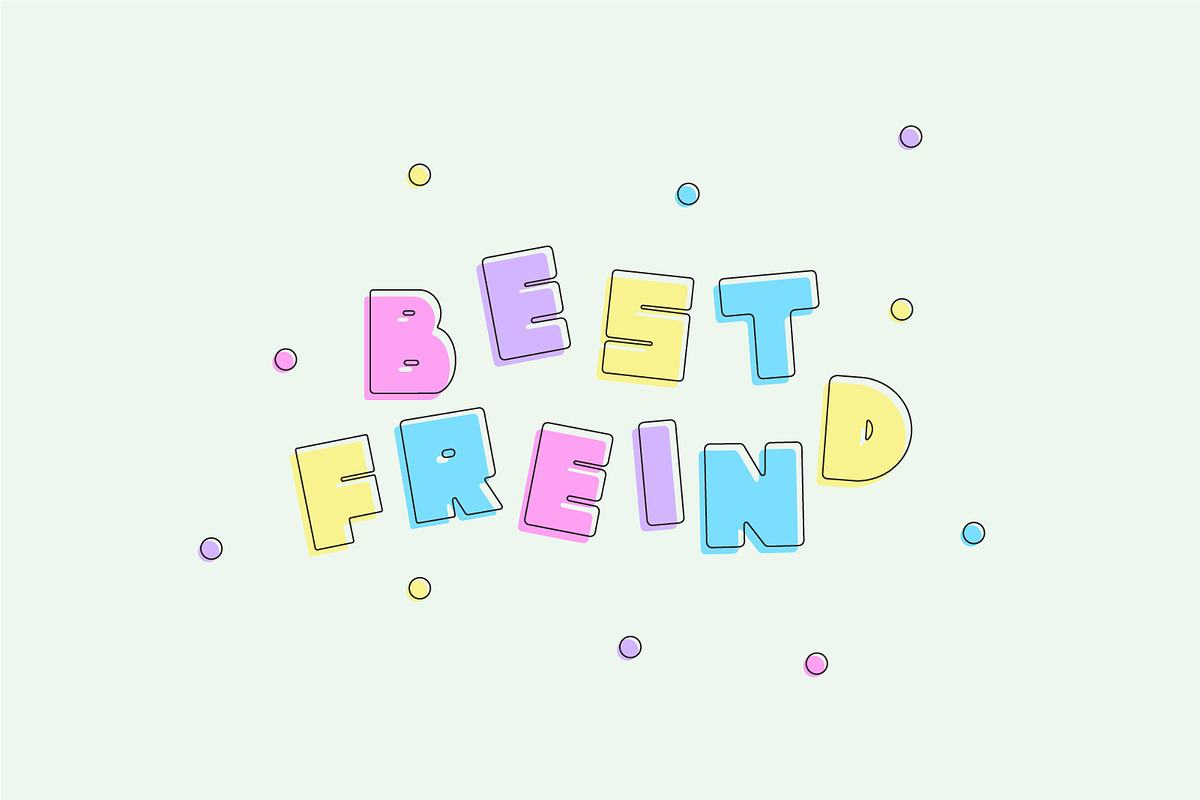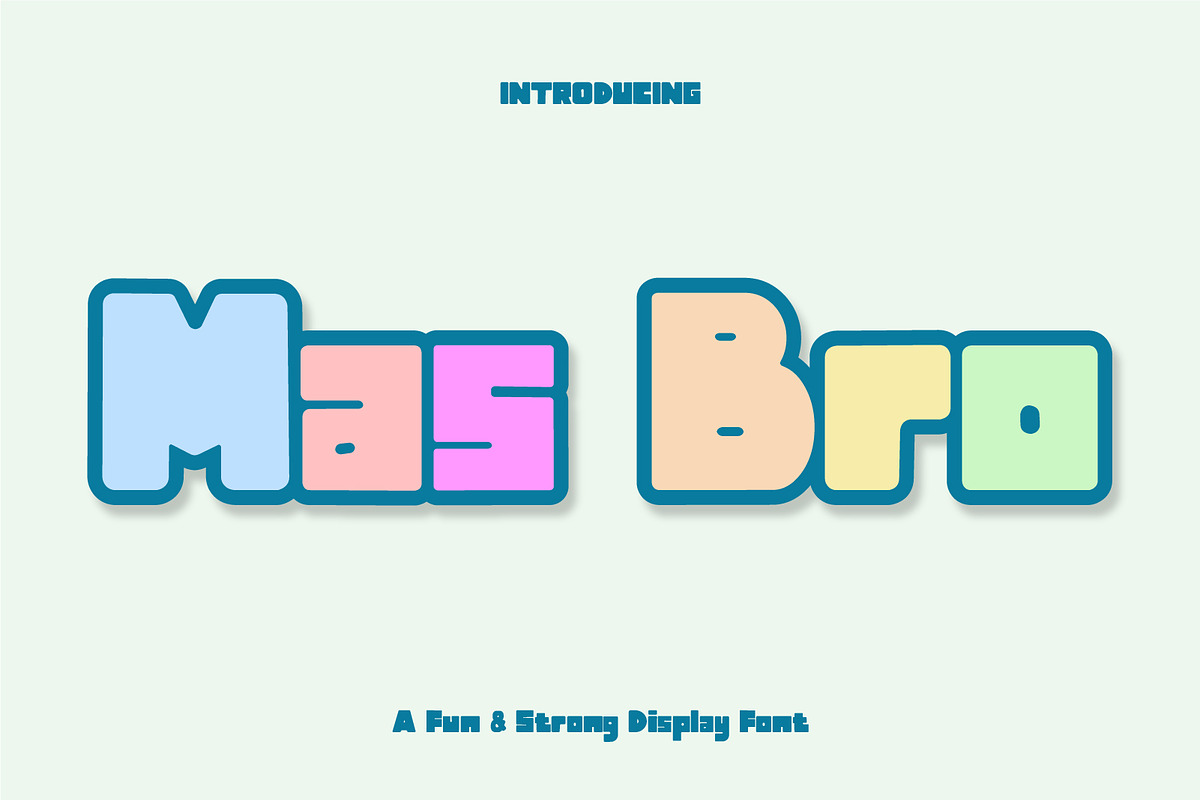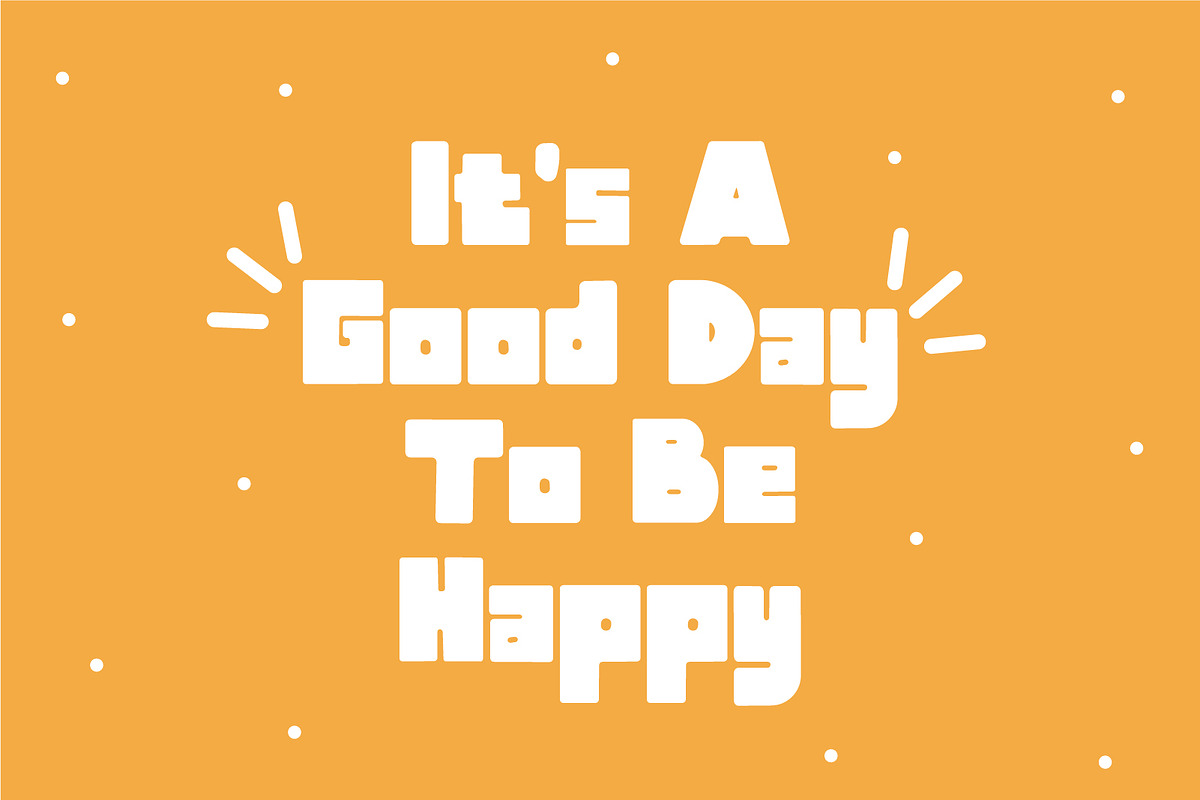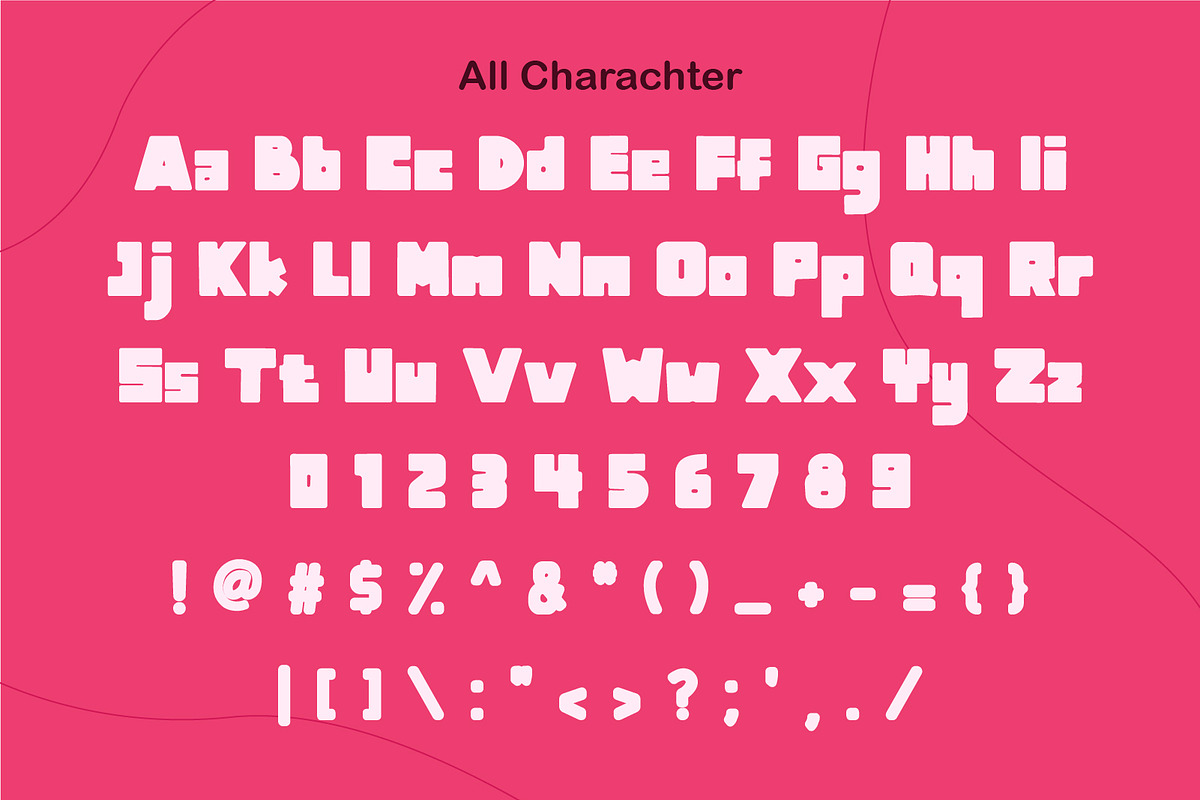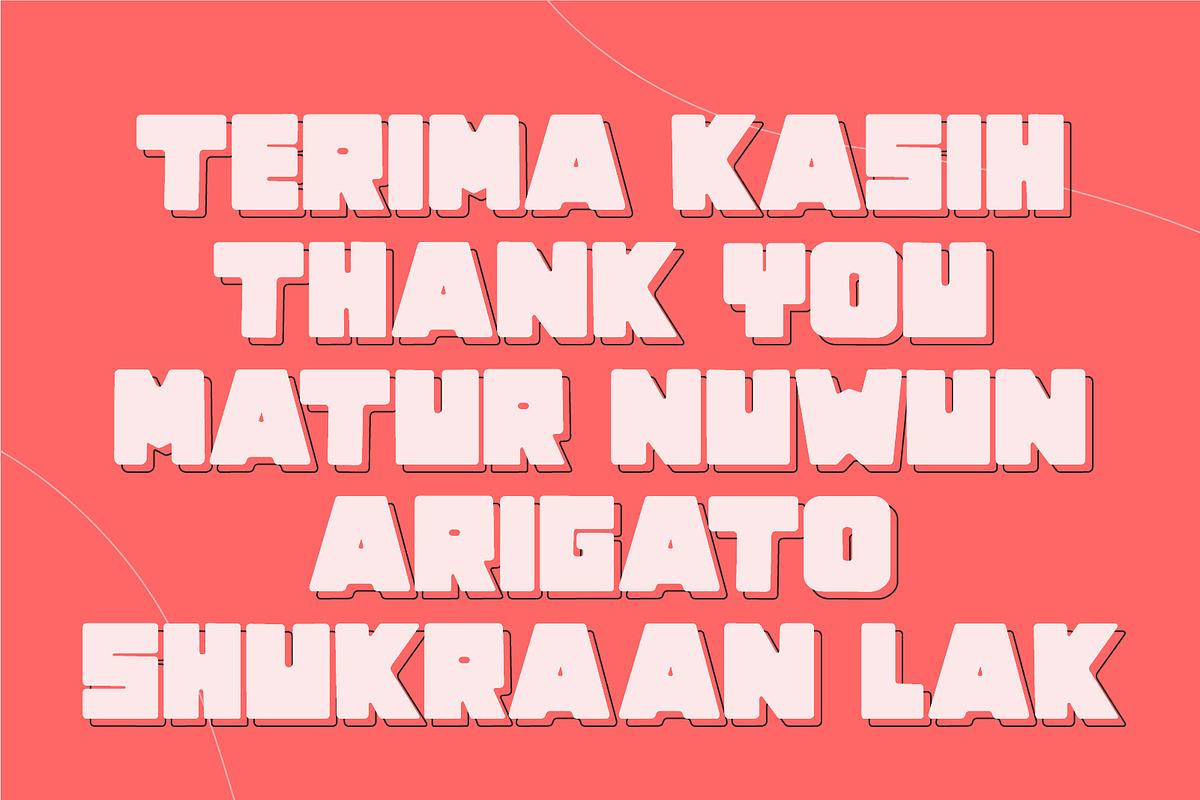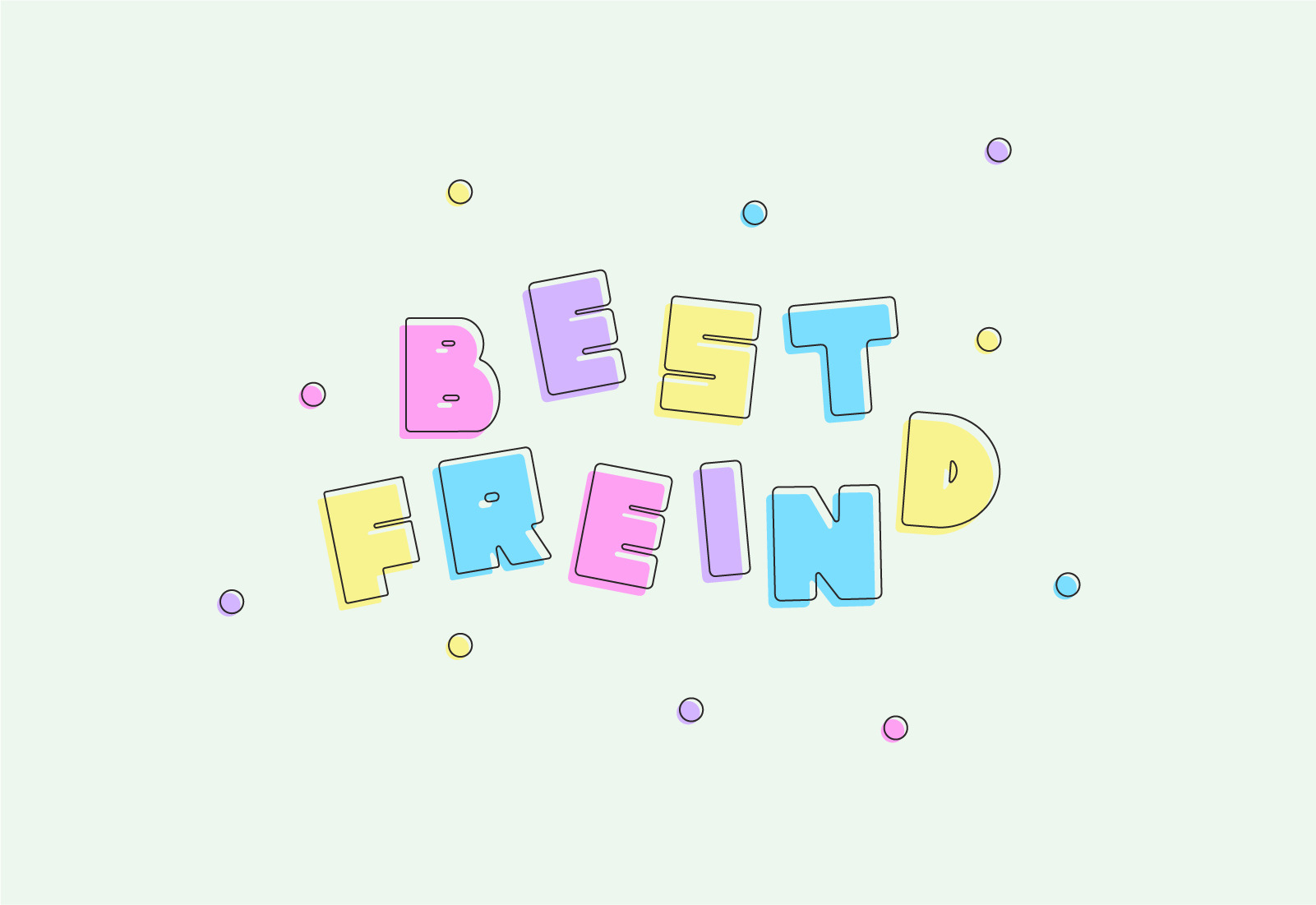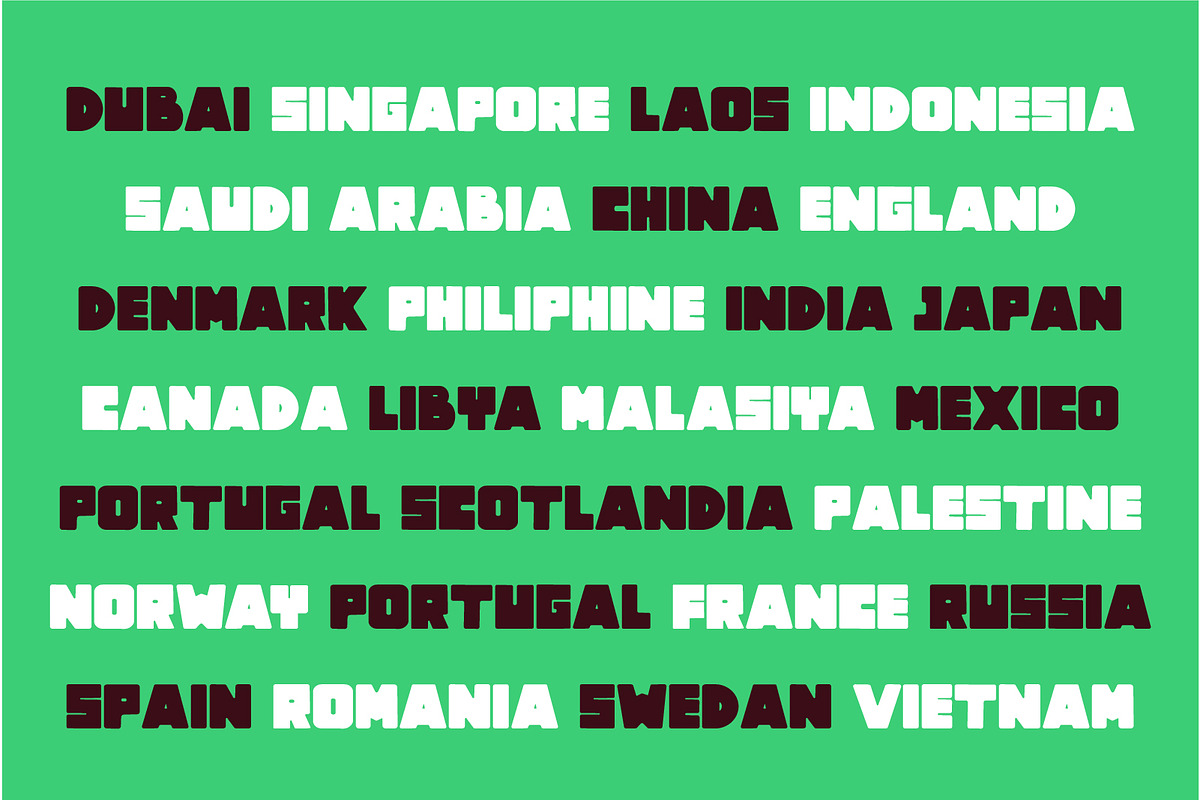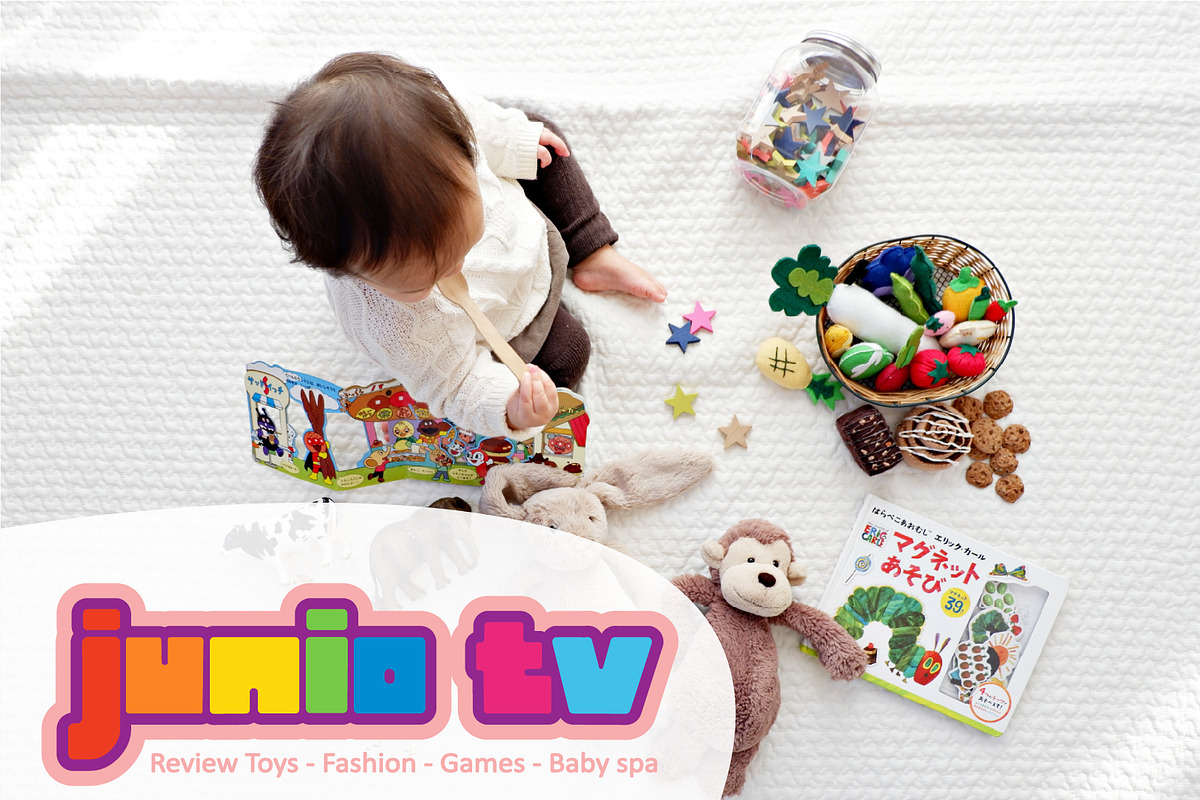
Mas Bro | Kids and Bold Font
Mas Bro is a distinctive and eye-catching display font that features thick lettering and bold lines. This font is imbued with a sense of playfulness and authenticity, making it an ideal choice for any children's activity or school project. Whether you're looking to create a poster, banner, or other type of design, Mas Bro is sure to make your text stand out and leave a lasting impression on your audience. Its unique design and bold style make it a popular choice among designers looking to add a touch of personality and flair to their work.